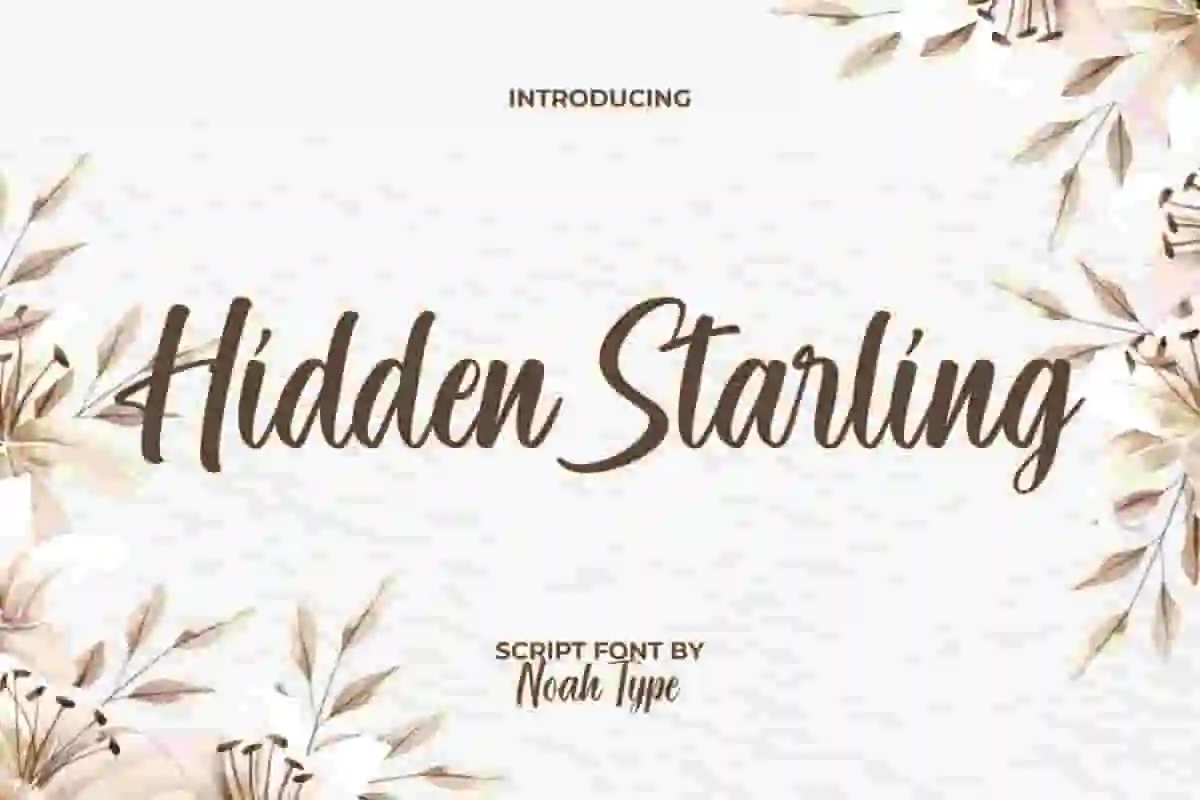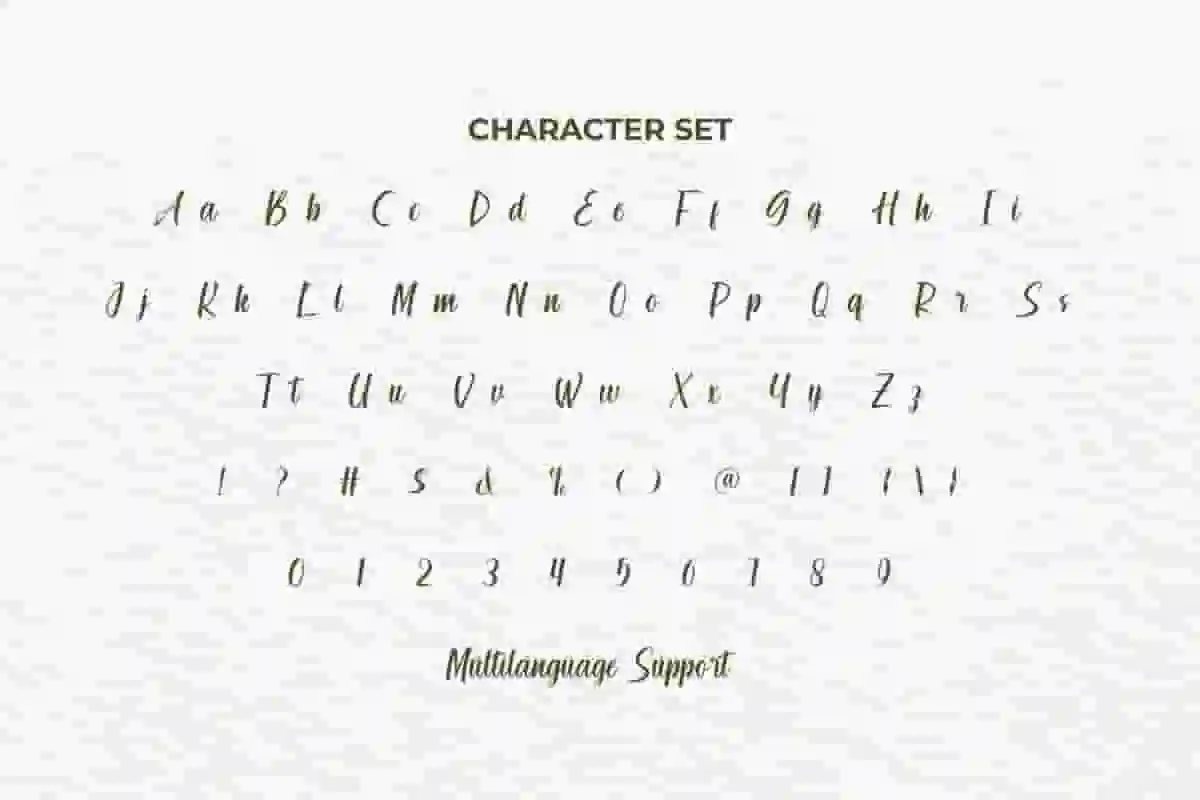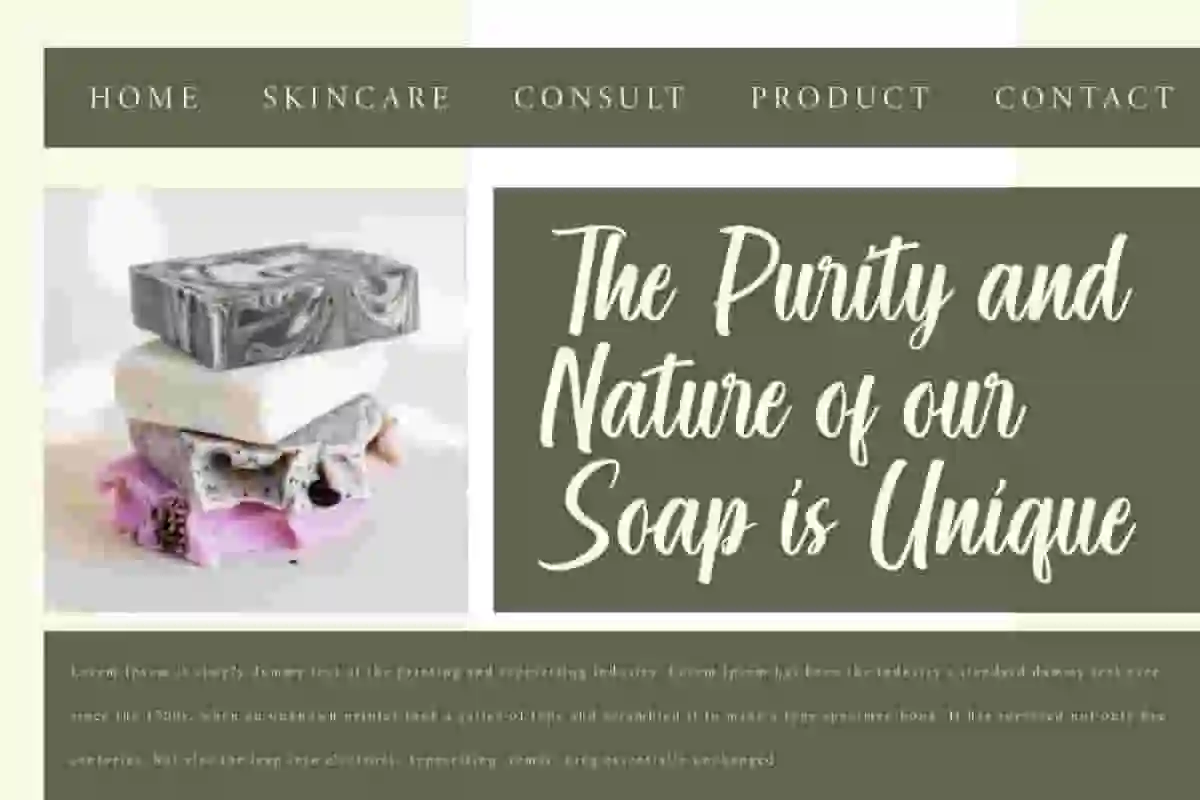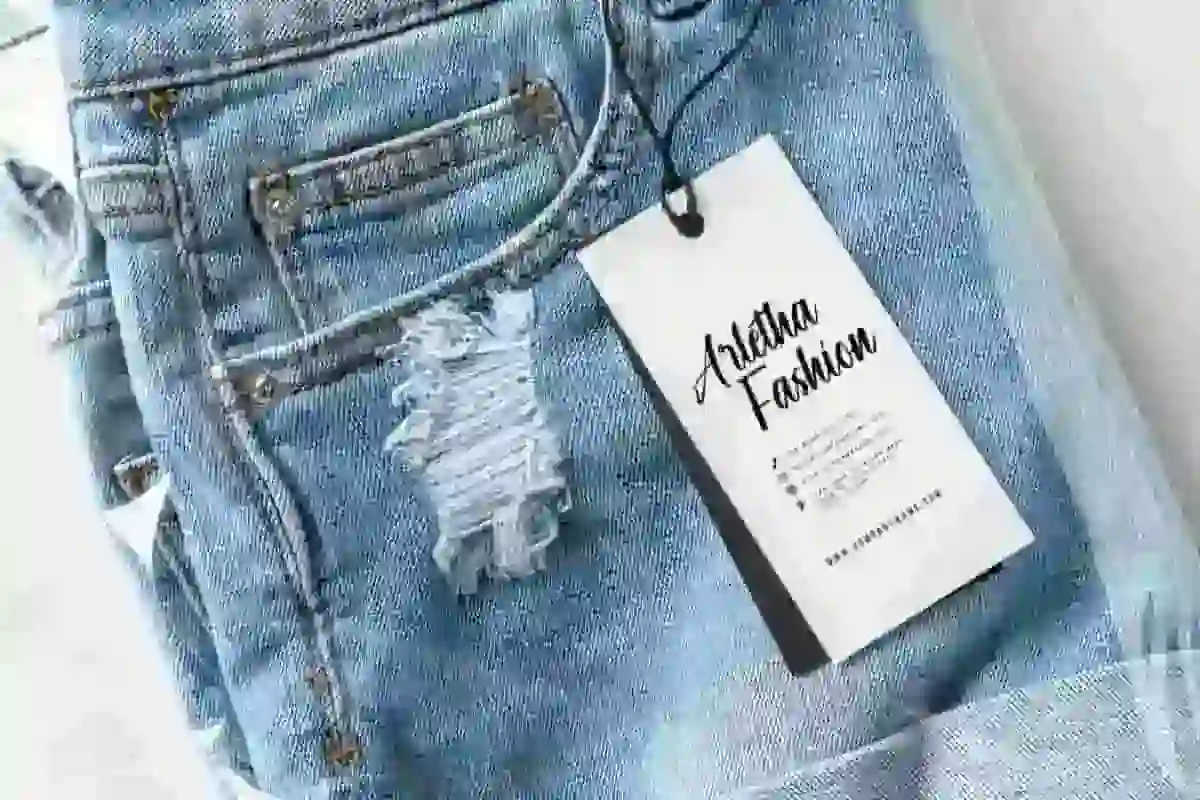
Hidden Starling Font is a beautiful handwritten calligraphic script font by NoahType. This font can provide a charming appearance with a feminine impression. It will be suitable for any industries, such as advertisement, beauty product, cafe, event or wedding organizer, fashion, florist, printing, publishing, and more!
Hidden Starling Font includes full set of Uppercase and Lowercase Basic Characters, Numerals, Punctuation and Symbol. Go get and use this stunning font with Ligature characters as well in your various designs, such as brand invitation, brochure, custom design, gift box, greeting or thank you card, label, menu, poster, quotes, screen printing, signage, stationery, website, and more!